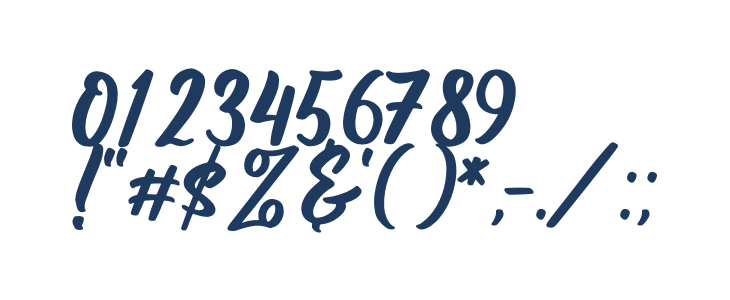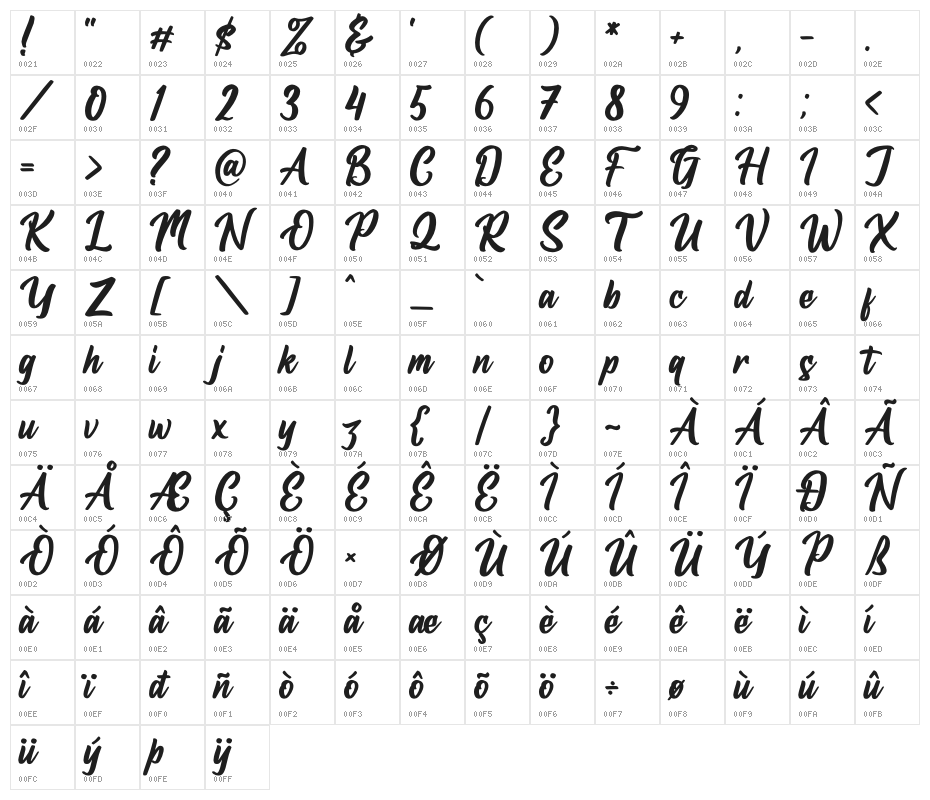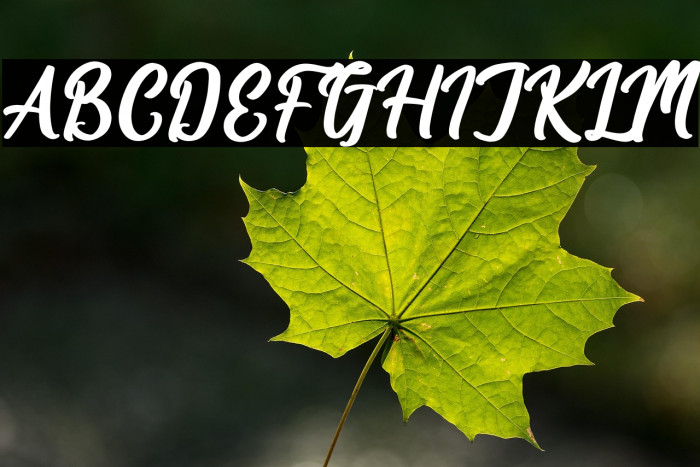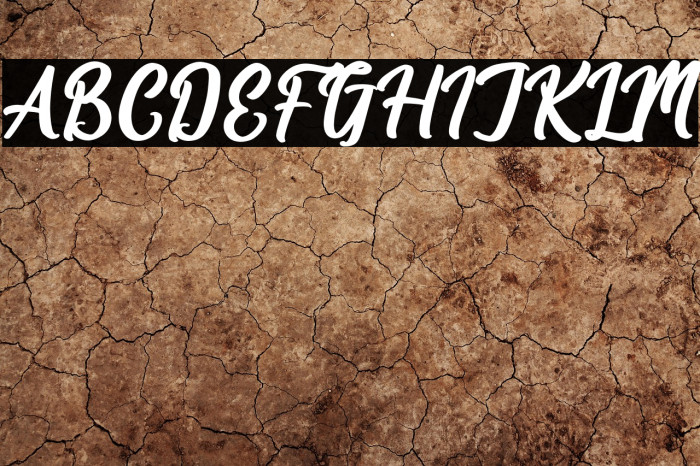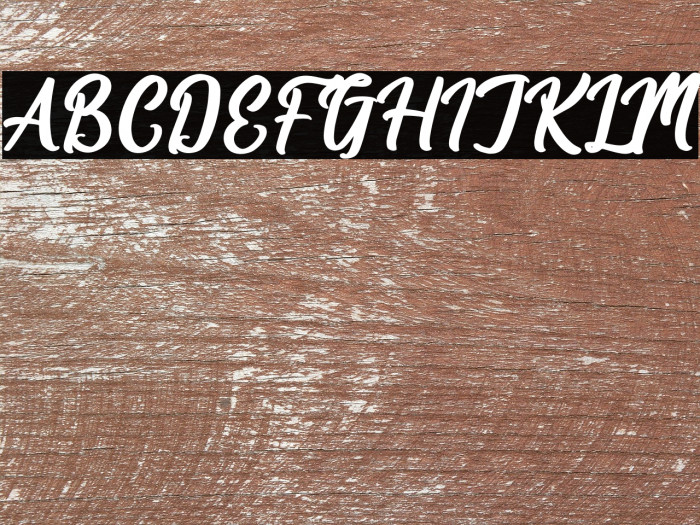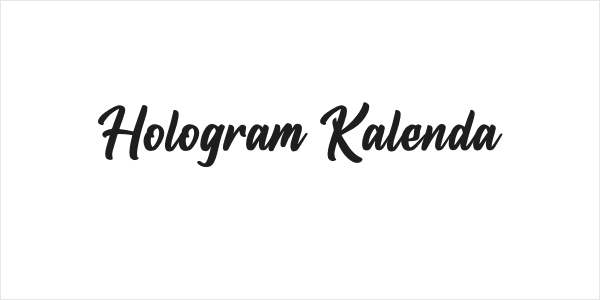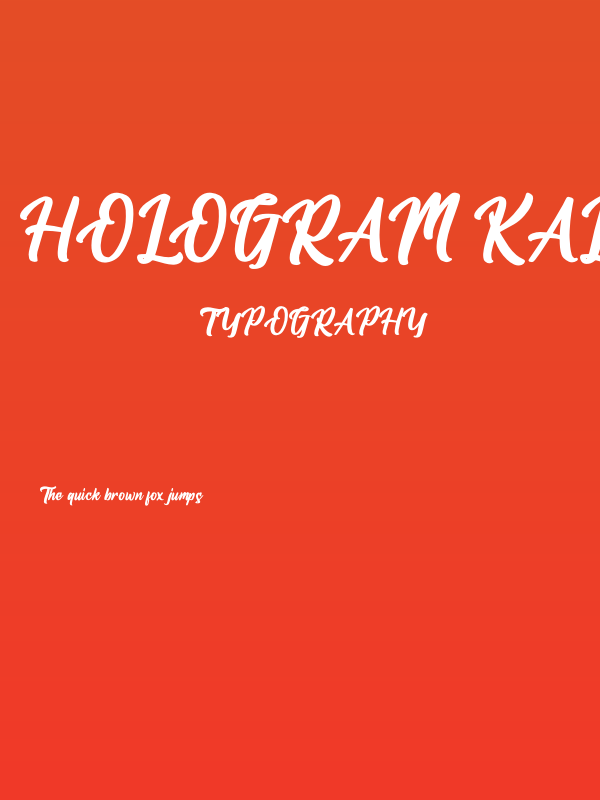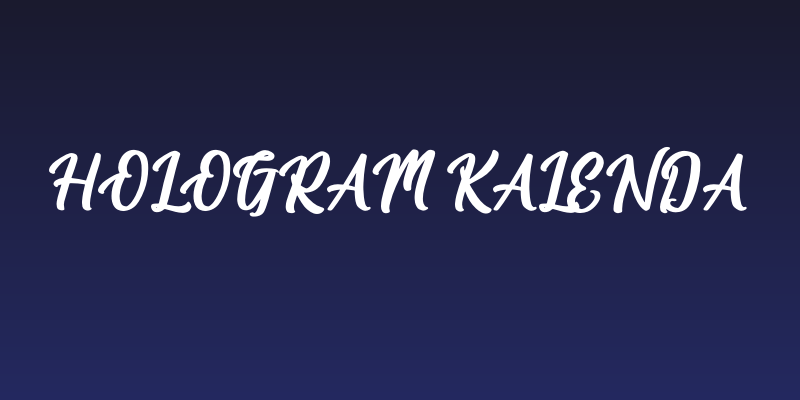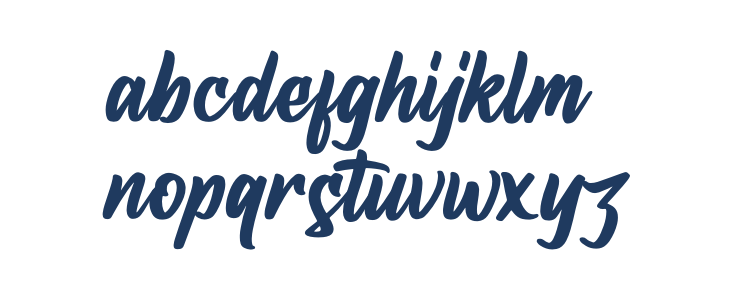
Hologram Kalenda Font
Hologram Kalenda Description
This font features a bold and expressive script style with a dynamic flow, reminiscent of handwritten calligraphy. The letters are interconnected, creating a sense of movement and fluidity. The uppercase characters are slightly more ornate, with elegant curves and loops, while the lowercase letters maintain a consistent rhythm. The numbers and special characters are designed to match the overall aesthetic, ensuring a cohesive look. The strokes are thick and consistent, providing a strong visual impact. This font is ideal for projects that require a personal or artistic touch.